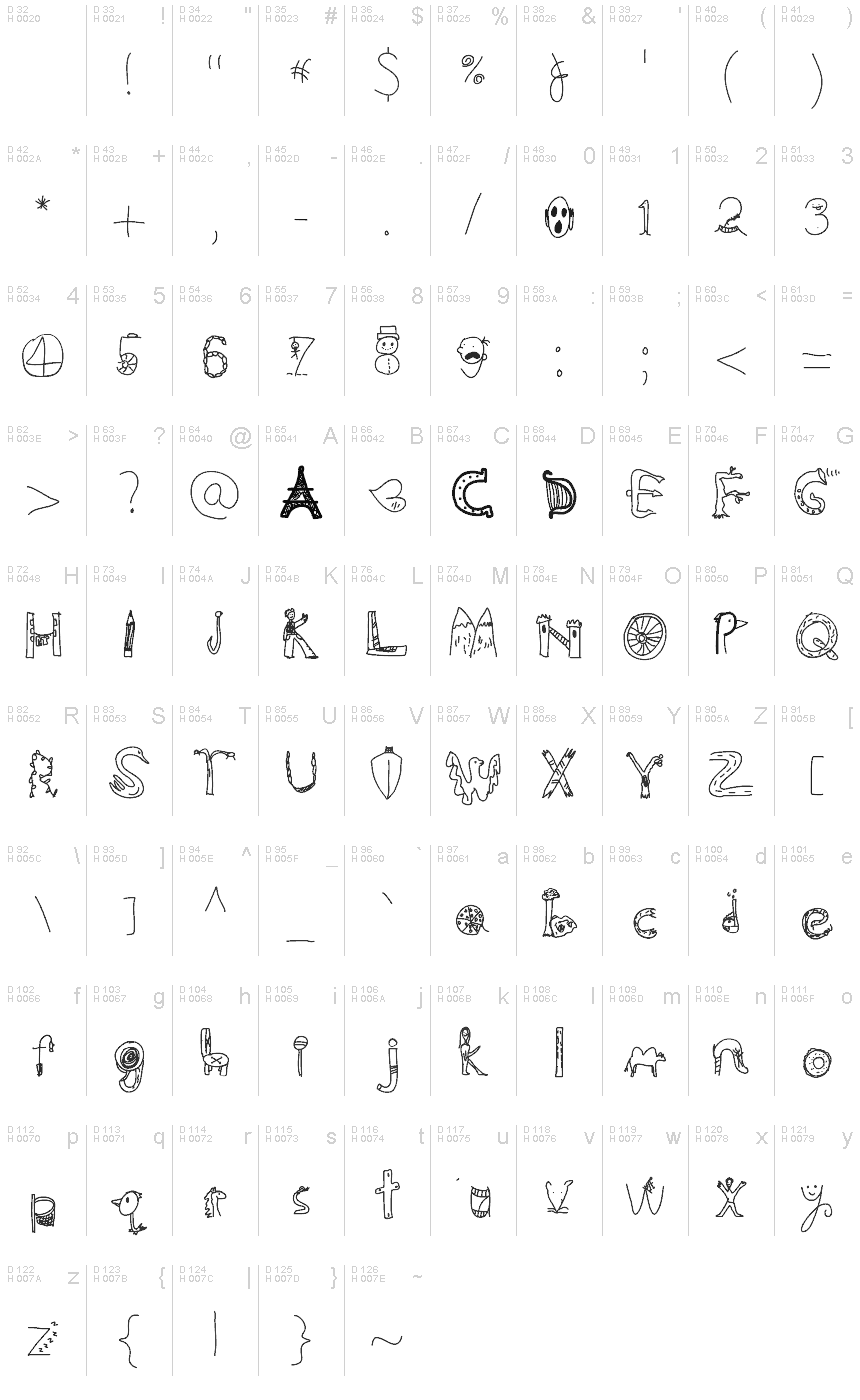
MyWorld
MyWorld by Sarai Lewis is a captivating display font that exudes a whimsical and playful essence. The unique letterforms feature organic, fluid shapes, creating a sense of movement and energy. This decorative typeface boasts an artisanal, hand-crafted aesthetic, presenting an inviting and approachable visual style.
The font's defining characteristics include its varied stroke widths, irregular curves, and playful ascenders and descenders. These elements combine to imbue the typography with a charming, handwritten-inspired quality, making it an excellent choice for branding, packaging, and editorial design projects.
Versatile in its application, MyWorld by Sarai Lewis excels in attention-grabbing headlines, playful logotypes, and eye-catching display text. Its distinctive personality lends itself well to children's publications, stationery, and other creative endeavors that require a touch of endearing, personality-driven design.
The font's defining characteristics include its varied stroke widths, irregular curves, and playful ascenders and descenders. These elements combine to imbue the typography with a charming, handwritten-inspired quality, making it an excellent choice for branding, packaging, and editorial design projects.
Versatile in its application, MyWorld by Sarai Lewis excels in attention-grabbing headlines, playful logotypes, and eye-catching display text. Its distinctive personality lends itself well to children's publications, stationery, and other creative endeavors that require a touch of endearing, personality-driven design.